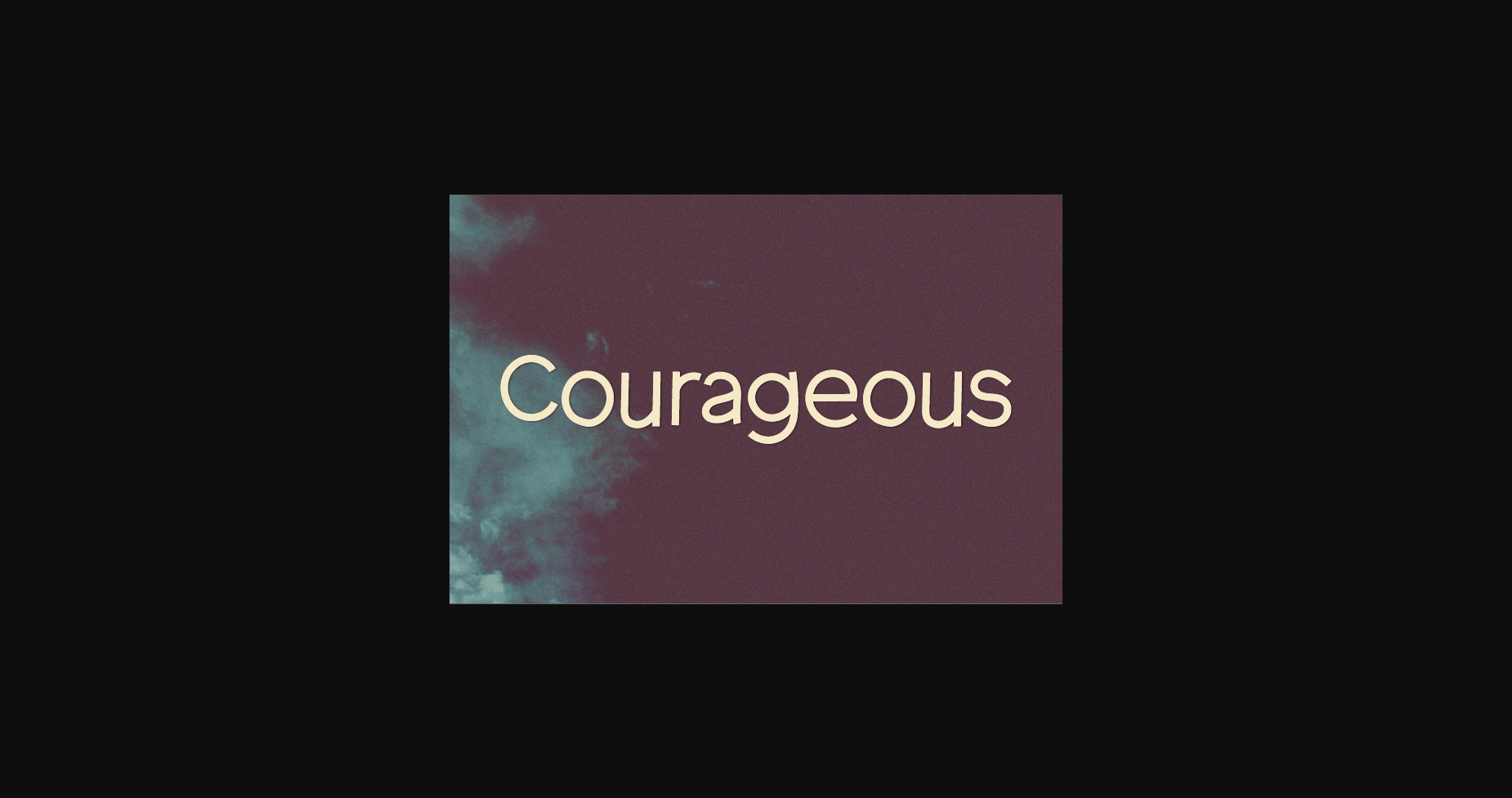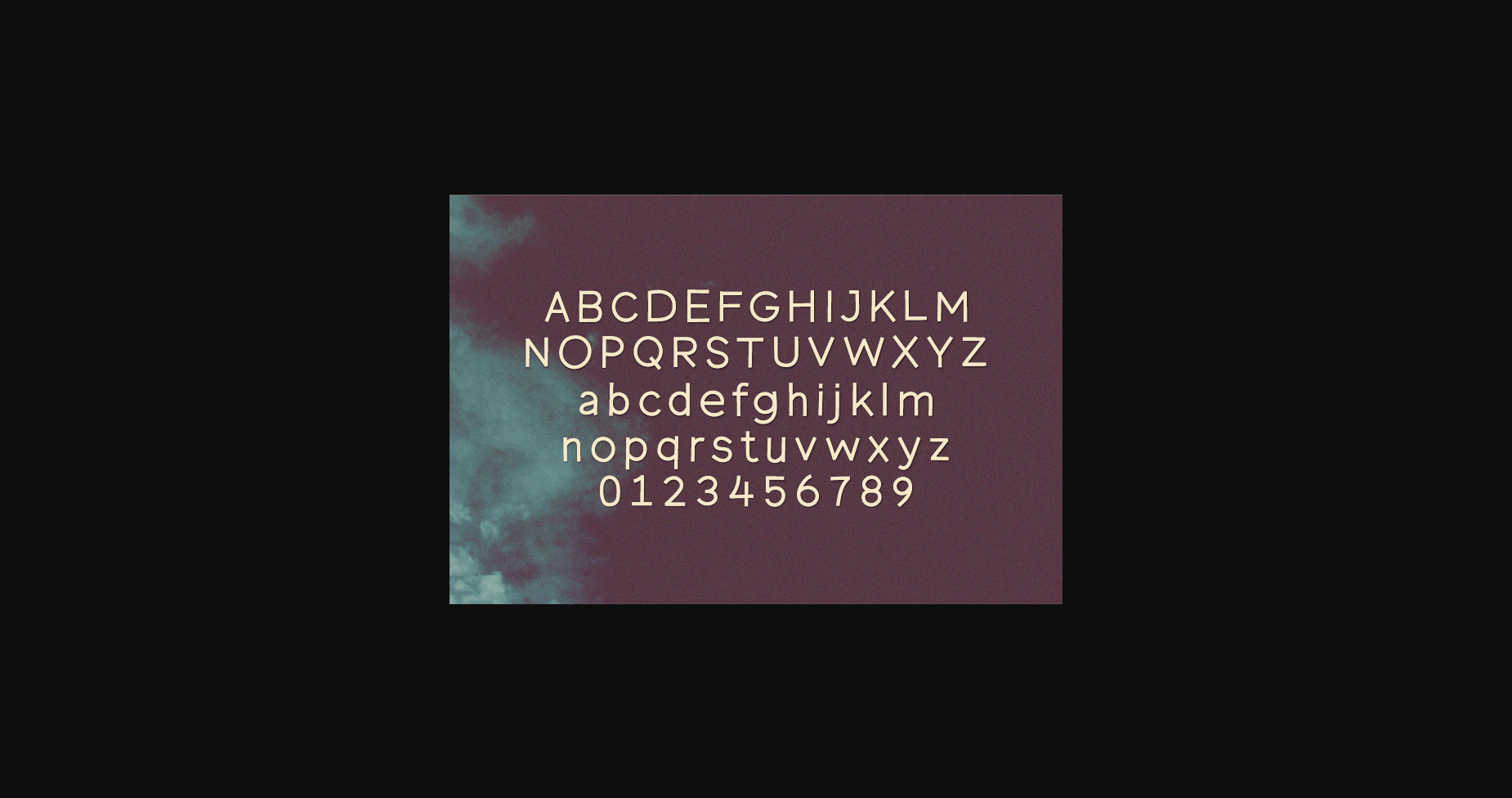
About Courageous Font
Courageous is a beautiful sans serif font that will make a wonderful asset to your collection. Add it to your logos, quotes, T-shirts, greeting cards, business cards, and many more, and make them outstanding!